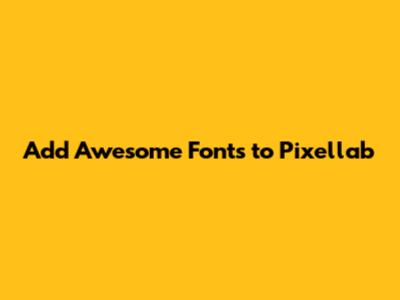
Hey guys, ever feel like your Pixellab designs are a little… meh? You know, they’re okay, but they’re not really popping? A lot of the time, the secret sauce to making your graphics stand out isn't some complicated technique, it's all about the fonts! That's right, the text you use can totally transform your whole vibe. If you're wondering how to download cool fonts for Pixellab, you've landed in the right spot. We're going to dive deep into making your text look super keren, or cool, as you guys say. Pixellab is an amazing tool, and it gets even better when you start jazzing it up with unique typography. Forget those basic, boring fonts that come pre-installed; we're about to unlock a world of creative possibilities. Get ready to make your designs go from drab to fab, all thanks to the magic of awesome fonts. So, buckle up, and let's get your Pixellab projects looking seriously stylish!
Why Fonts Matter in Pixellab
So, why are we even bothering with downloading cool fonts for Pixellab? It’s simple, really. Think about it: when you see a poster, a social media graphic, or even a book cover, what’s one of the first things that catches your eye besides the image? It’s the text! The font you choose sends a message before anyone even reads the words. A bold, blocky font might scream power and impact, perfect for a sports team logo or a motivational quote. A delicate, script font can convey elegance and sophistication, ideal for wedding invitations or a beauty brand. A playful, cartoonish font is obviously great for kids' stuff or something lighthearted. Pixellab, bless its heart, comes with some decent fonts, but let's be real, they’re pretty standard. To truly make your Pixellab designs pop, you need access to a wider variety of typography. This is where downloading external fonts comes in. It’s like giving your design toolbox a serious upgrade. You gain the ability to match the perfect font to your message and your audience. You can create a consistent brand identity with unique fonts that people start to recognize. Plus, it’s just plain fun to experiment! Finding that one special font can be the difference between a design that gets ignored and one that grabs attention and gets shared. So, yeah, fonts are a big deal in Pixellab.
DaFont: Classic Choices and Fun Finds
Next up on our font-finding mission is DaFont. If Google Fonts is the modern library, then DaFont is like the quirky, well-loved independent bookstore of free fonts. It’s been around forever, and it’s packed with an enormous collection of fonts, many of which are free for personal use. Finding cool fonts for Pixellab here is a blast because they organize everything into tons of categories: Basic, Script, Decorative, Grungy, Sci-Fi, Horror, Gothic… you name it! This makes browsing really fun and can lead you to discover fonts you never knew you needed. For example, you might be looking for a simple sans-serif, but stumble upon an amazing, hand-drawn font in the 'Handwritten' section that perfectly captures the quirky vibe you're going for. A word of caution, though, guys: always, always check the license. Many fonts on DaFont are free for personal use only. If you plan to use them on a commercial project (like a logo for your business, or graphics for a product you sell), you'll likely need to purchase a separate license from the font designer. Look for the '100% Free' tag or check the details provided. Despite this, DaFont remains an invaluable resource for anyone wanting to download fonts for Pixellab to spice up their personal projects, social media posts, or just for creative exploration. It’s a treasure trove of unique styles that you won’t find everywhere else.
Downloading and Installing Fonts in Pixellab
Okay, you’ve scouted out some awesome fonts online, and you’re itching to get them into Pixellab. The process is actually pretty straightforward, and it's the key step to making your Pixellab designs keren. First things first, after you download a font from a site like Google Fonts or DaFont, it usually comes in a compressed .zip file. You’ll need to extract these files. On your phone, you can usually do this using a built-in file manager app or by downloading a free file explorer app from your app store (like Files by Google or ES File Explorer). Just find the .zip file, tap on it, and select the 'Extract' or 'Unzip' option. This will create a folder with the actual font files, which typically have extensions like .ttf (TrueType Font) or .otf (OpenType Font). Keep track of where you save these extracted font files on your phone – maybe create a dedicated 'Fonts' folder in your downloads or documents. Once you have the .ttf or .otf file, open Pixellab. Go to the text editing section, select your text, and then tap on the 'Font' option. You’ll see three tabs at the top: 'My Fonts', 'Recent', and 'Text'. Tap on 'My Fonts'. Here, you'll see a small icon, usually a folder with a plus sign (+) or three dots, at the top right corner of the screen. Tap that icon. This will open your phone's file browser. Navigate to the folder where you saved your extracted font files. Select the .ttf or .otf file(s) you want to add, and then tap 'Open' or 'Add Fonts'. Voila! Your newly downloaded fonts should now appear in the 'My Fonts' list within Pixellab, ready for you to use. It's that simple to add custom fonts to Pixellab and level up your creative game!